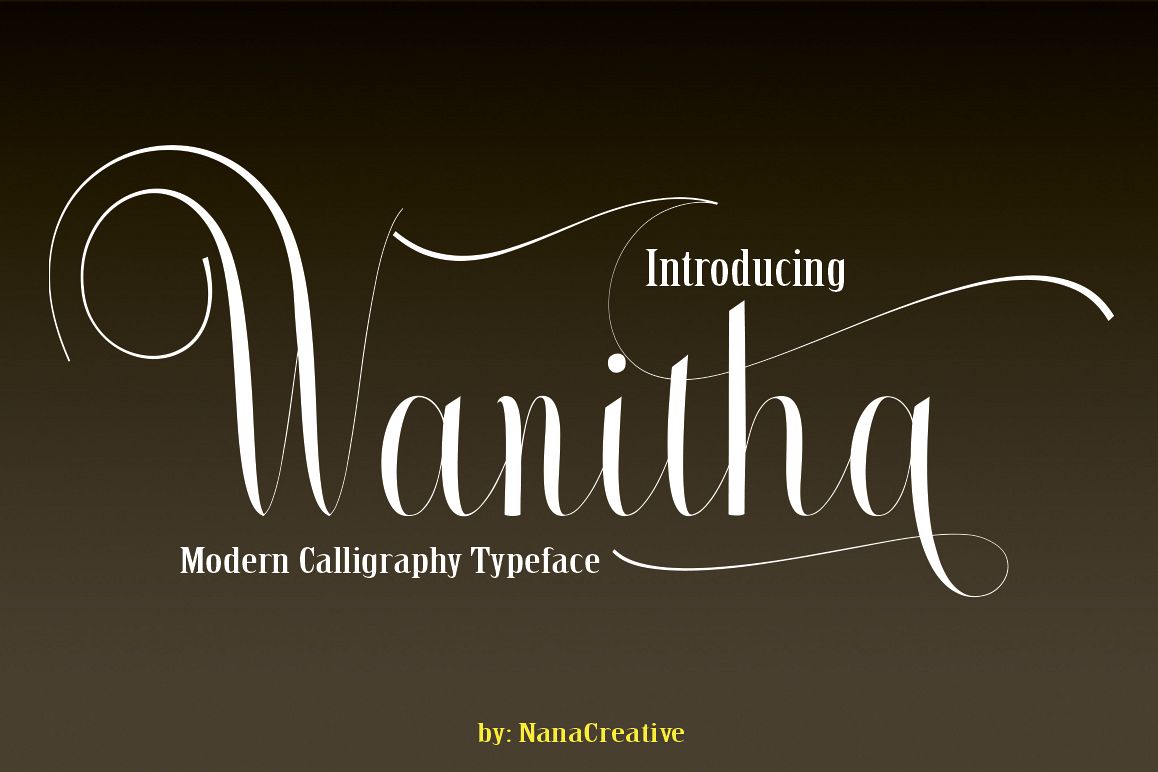
Wanitha
Wanitha-Regular
Wanitha is another lovely modern calligraphy typefaces, which is combining the style of classic calligraphy with an modern style. combines from copperplate to contemporary typeface with a dancing baseline, modern and elegant touch. features 704 glyphs and alternate characters Include . including initial and terminal letters, alternates, ligatures and multiple language support..
The Features of this fonts is;
* Standart ligatures
* Discretionary ligatures
* Swash Alternates
* Stylistic Alternates
* Stylistic sets
* PUA Unicode (Private Use Areas)
Languages supported: Breton, Catalan, Czech, Danish, Estonian,French, German, Hungarian, Icelandic, Italian, Romanian, Scottish Gaelic, Slovak, Latvian, Lithuanian, Norwegian, English, Finnish, Polish, Portuguese, Slovenian, Spanish, Swedish, Turkish, Welsh. Basically, all european languages that are based on latin alphabet